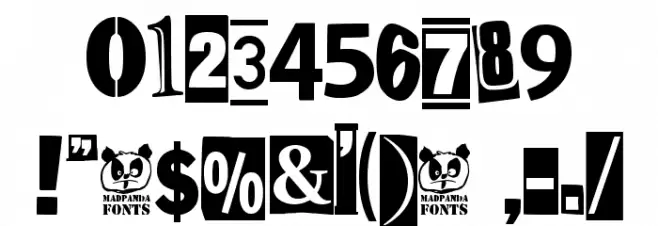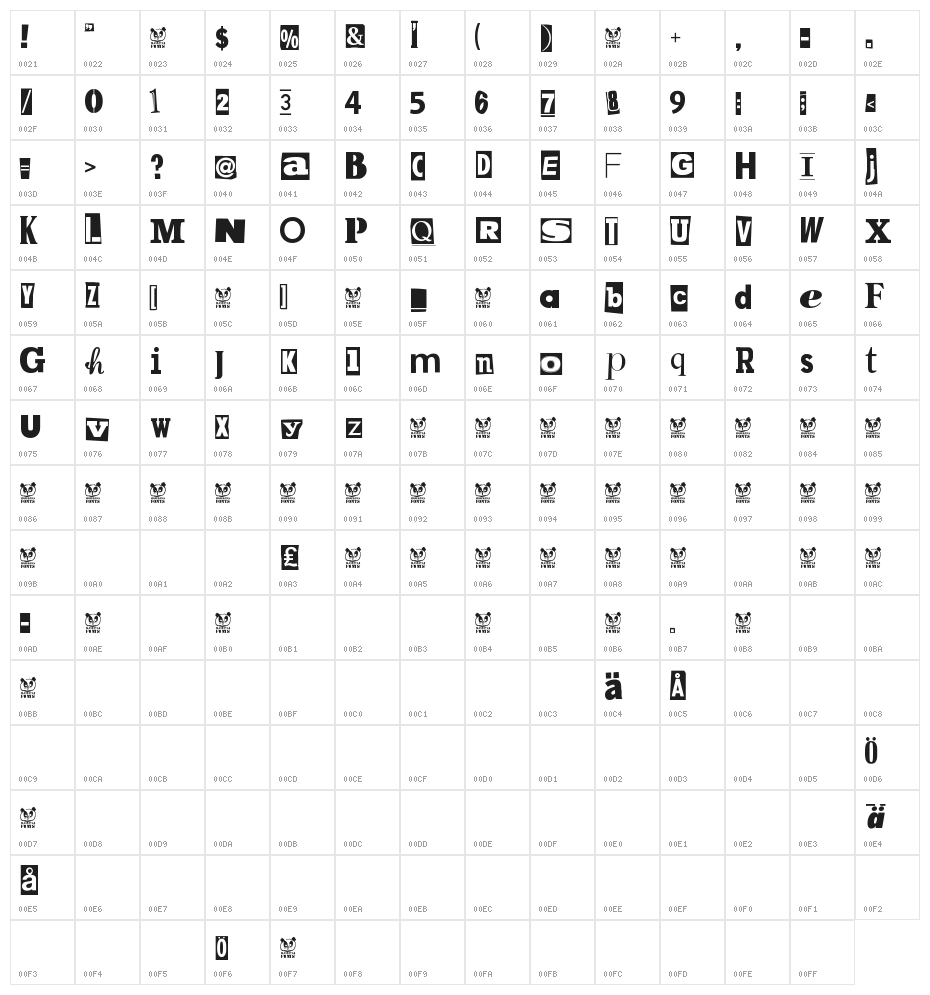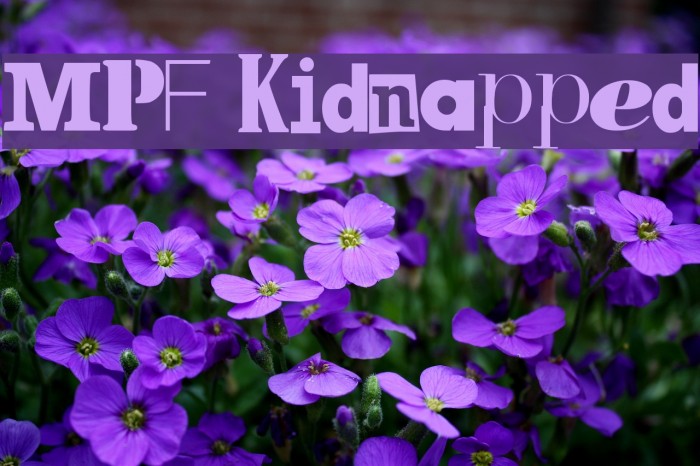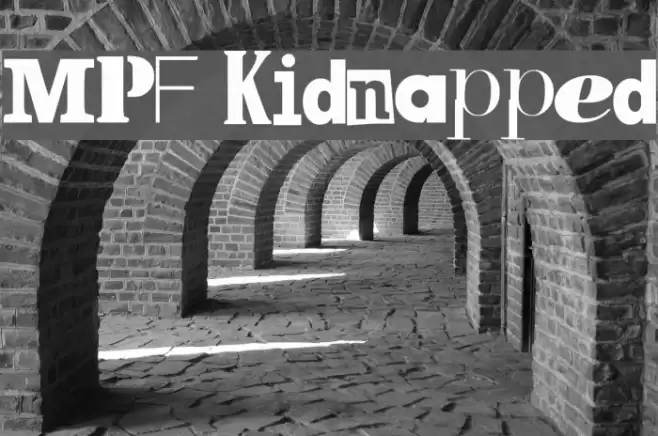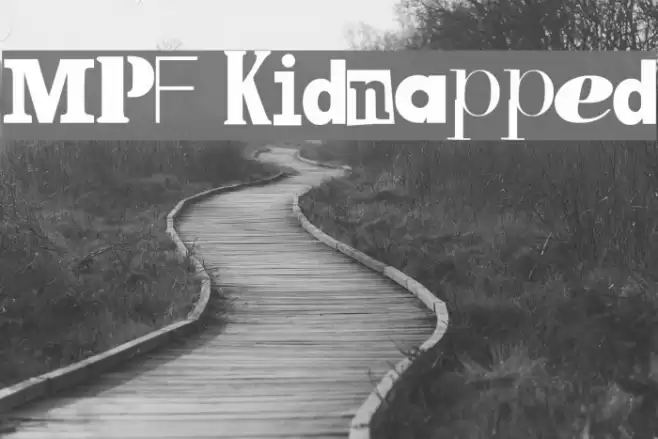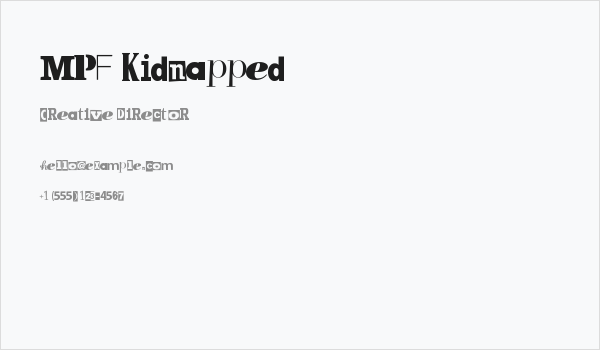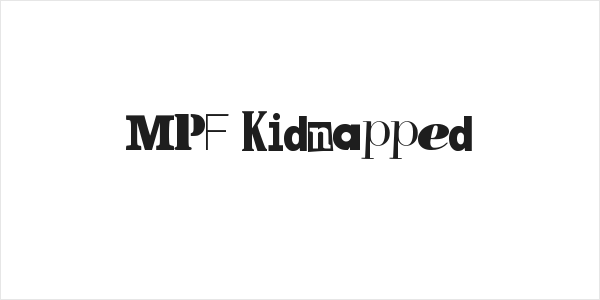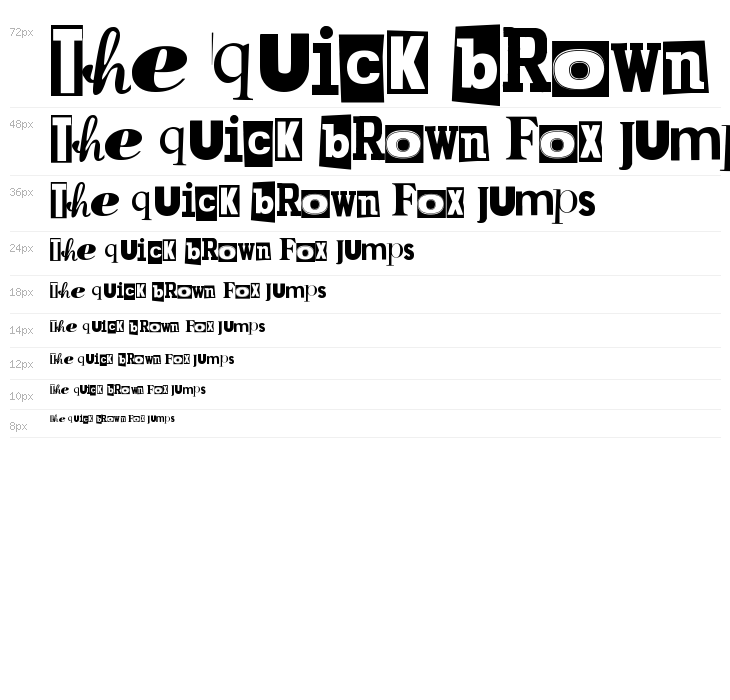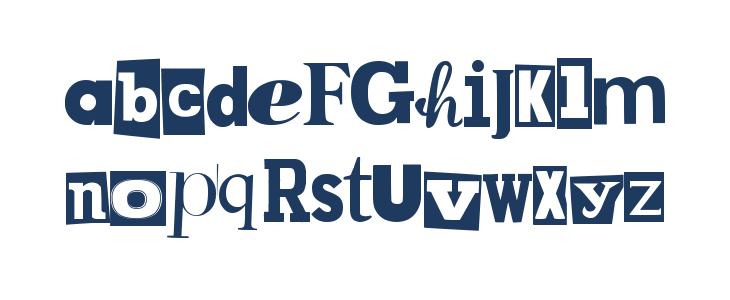
MPF Kidnapped Font
MPF Kidnapped Description
This font is a playful and eclectic mix of styles, reminiscent of letters cut from magazines or newspapers. Each character is unique, with varying shapes and sizes, creating a collage-like effect. The uppercase letters are bold and attention-grabbing, while the lowercase letters maintain a quirky charm. Numbers and special characters follow the same mismatched style, adding to the overall whimsical and creative appearance. This font is perfect for projects that require a fun, informal, and eye-catching design.
| Proposed Projects | Ideal for ransom notes, creative posters, children's book covers, and playful branding. |